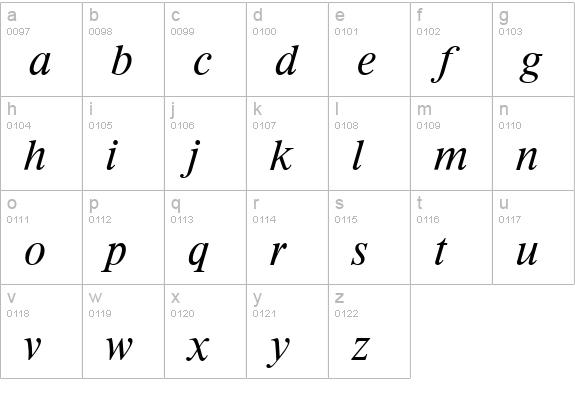
RiccioneSerial-Light-Italic is a refined, elegant, italic variant in the RiccioneSerial typeface family \xE2\x80\x94 well suited to elegant body text, refined sub-headings, and luxury branding.
RiccioneSerial-Light-Italic font is a stylish and elegant typeface that exudes sophistication and charm. Its delicate italic design adds a touch of refinement to any project, making it perfect for branding, invitations, and editorial design. The sleek and modern appearance of this font is sure to captivate your audience and leave a lasting impression. What's even better is that RiccioneSerial-Light-Italic font is completely free to download at FontsMarket.com. This means you can elevate your designs without having to worry about any additional costs. Don't miss out on this opportunity to enhance your creativity with this exquisite font that is just a click away. Download RiccioneSerial-Light-Italic now and let your imagination soar.